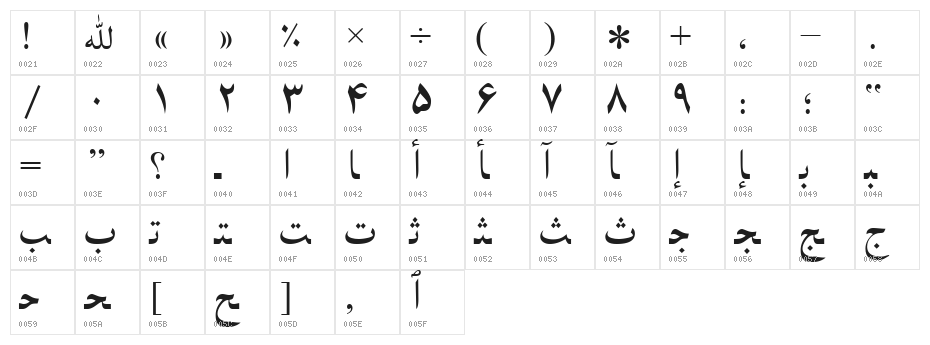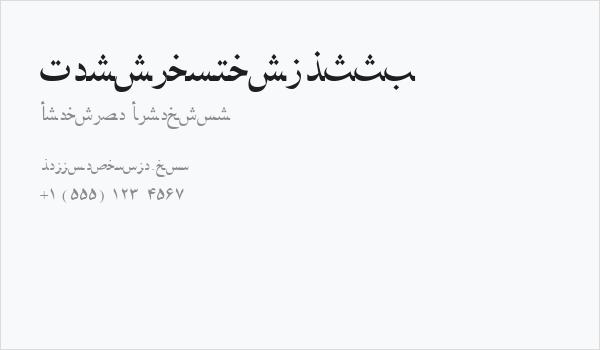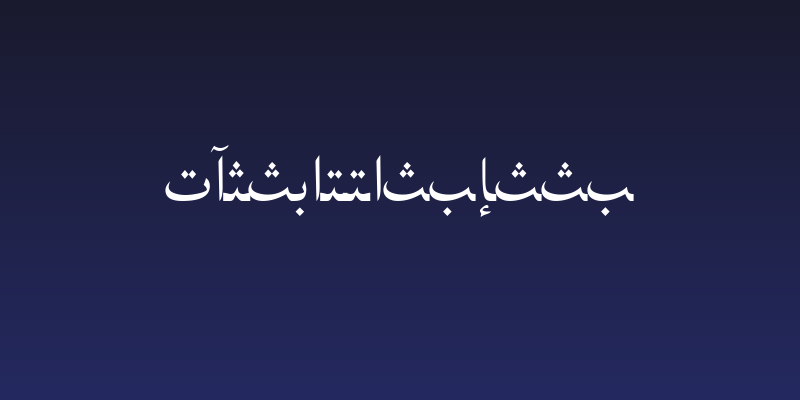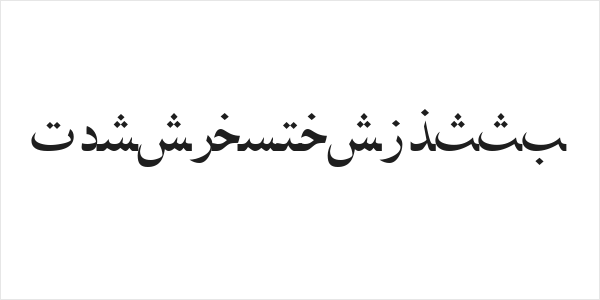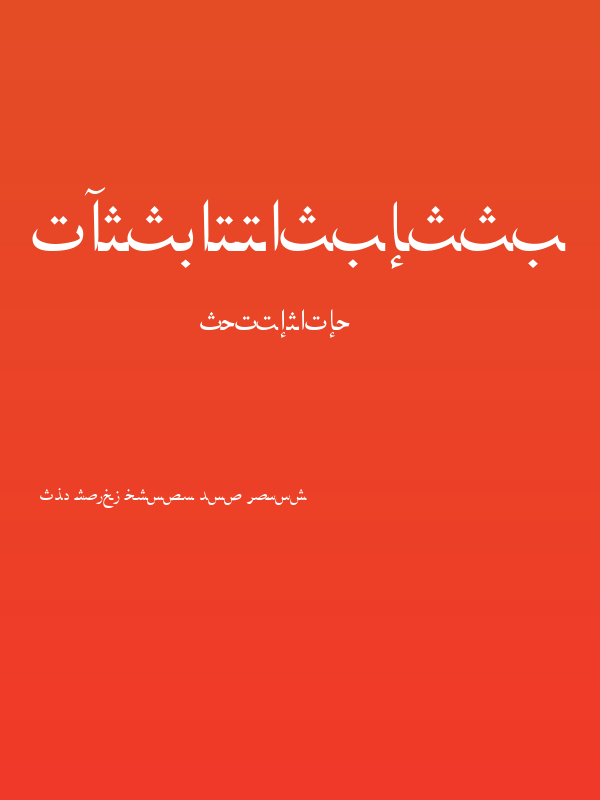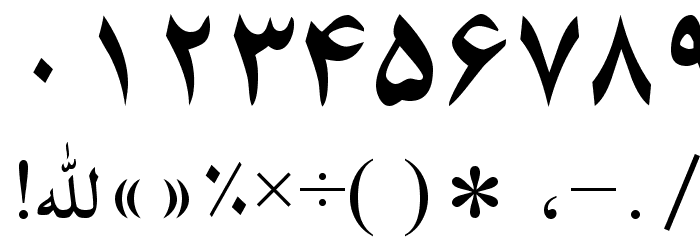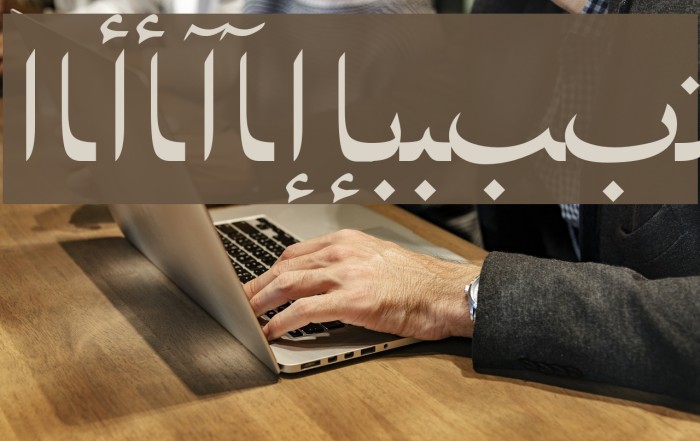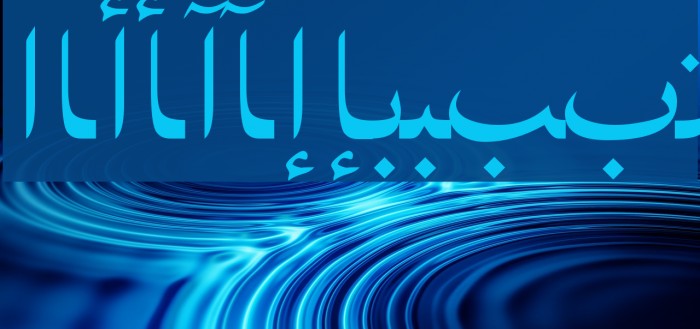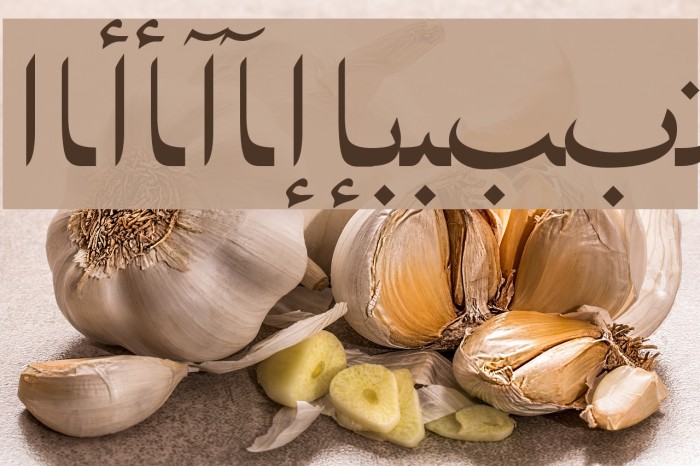
PersianNaskhSSK Font
PersianNaskhSSK Description
This font showcases a traditional and elegant style, characterized by its flowing curves and intricate detailing. The strokes are bold and confident, with a high contrast between thick and thin lines, giving it a dynamic and expressive appearance. The script is reminiscent of classic calligraphy, with a touch of modernity that makes it suitable for both traditional and contemporary designs. The characters are well-spaced, allowing for readability while maintaining an artistic flair. The font's unique style is ideal for projects that require a touch of sophistication and cultural richness.